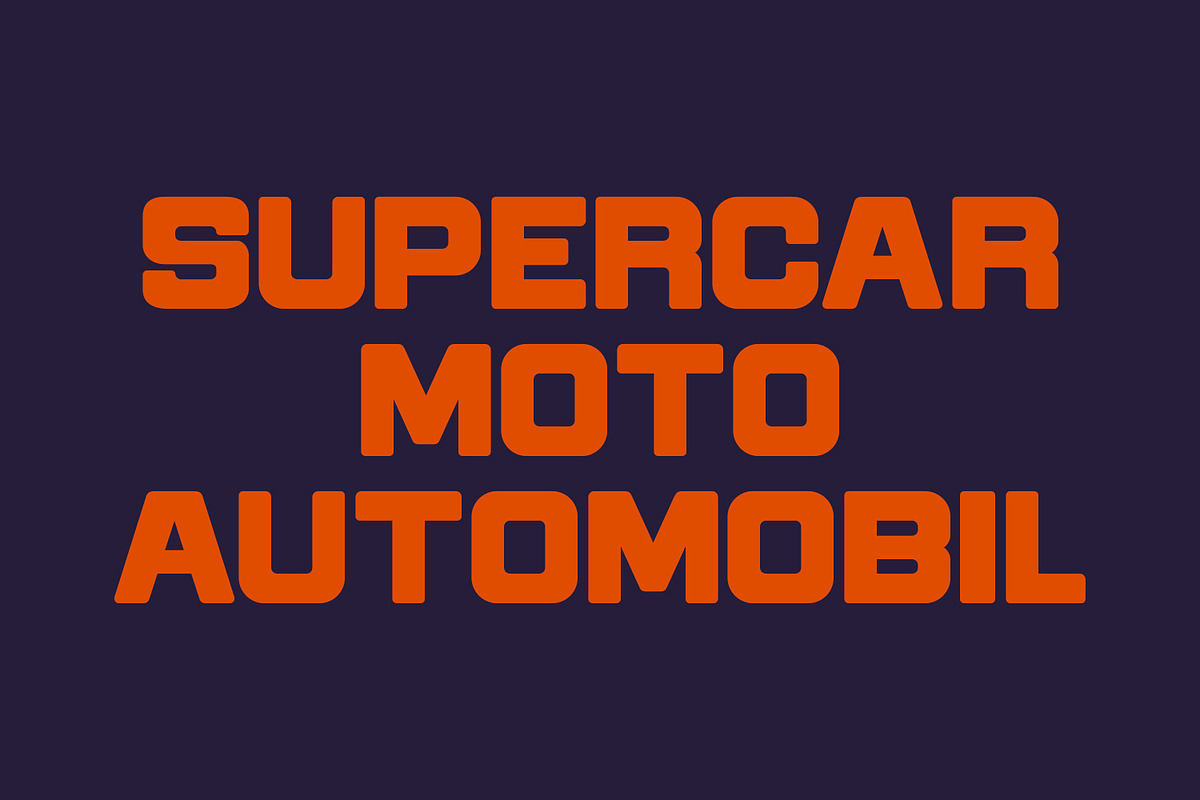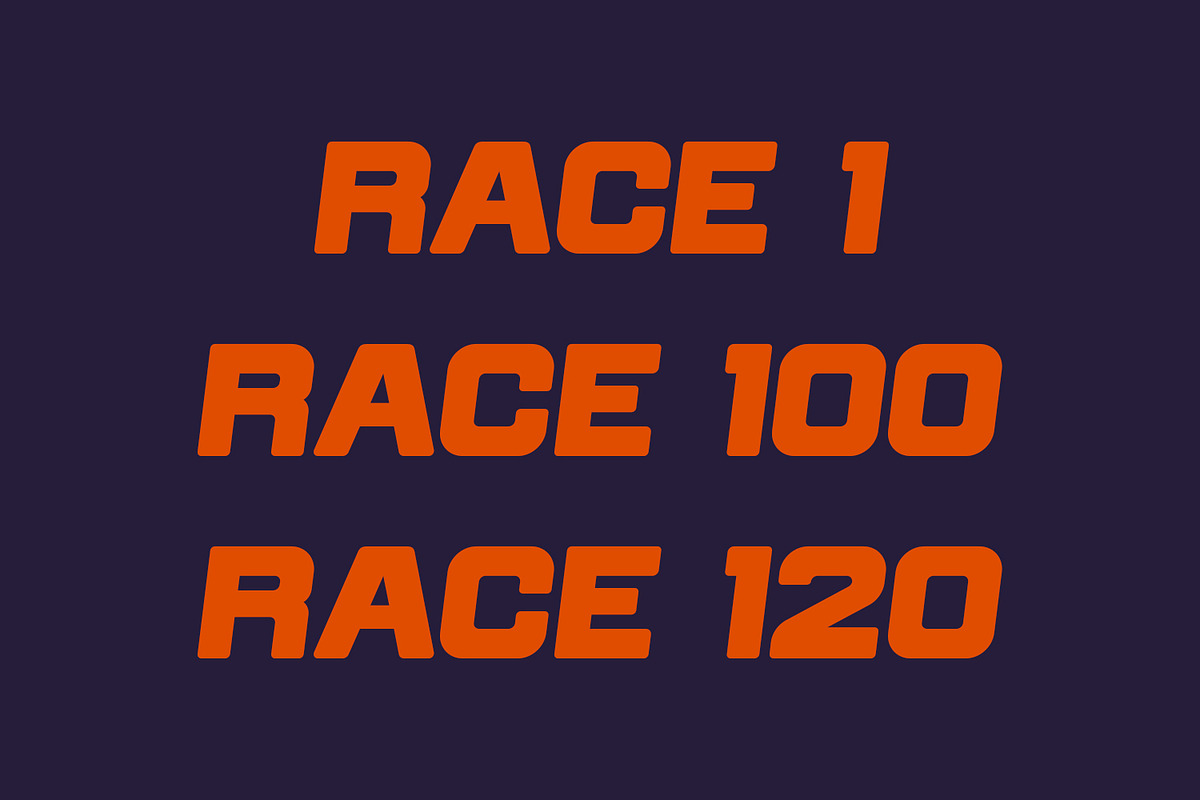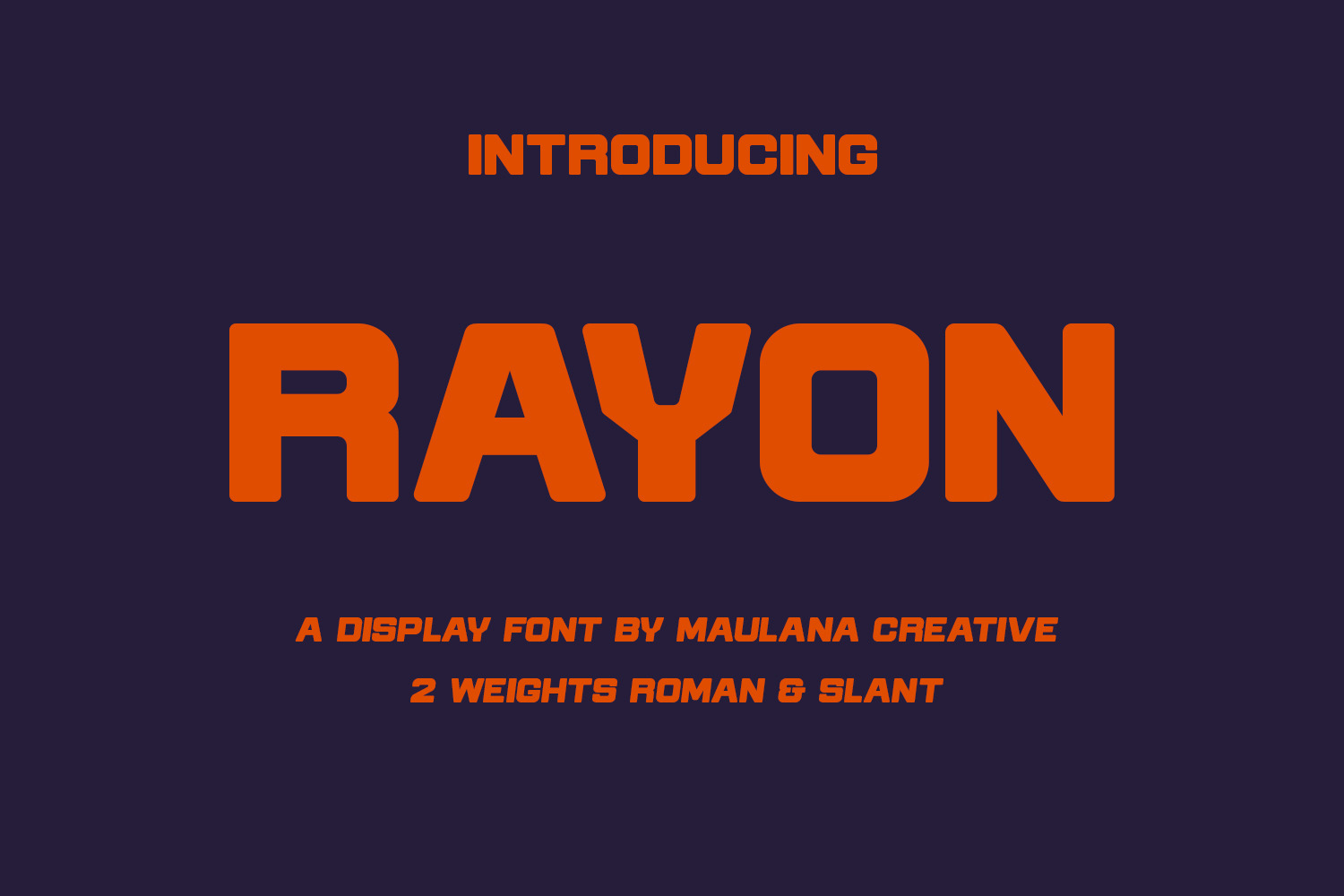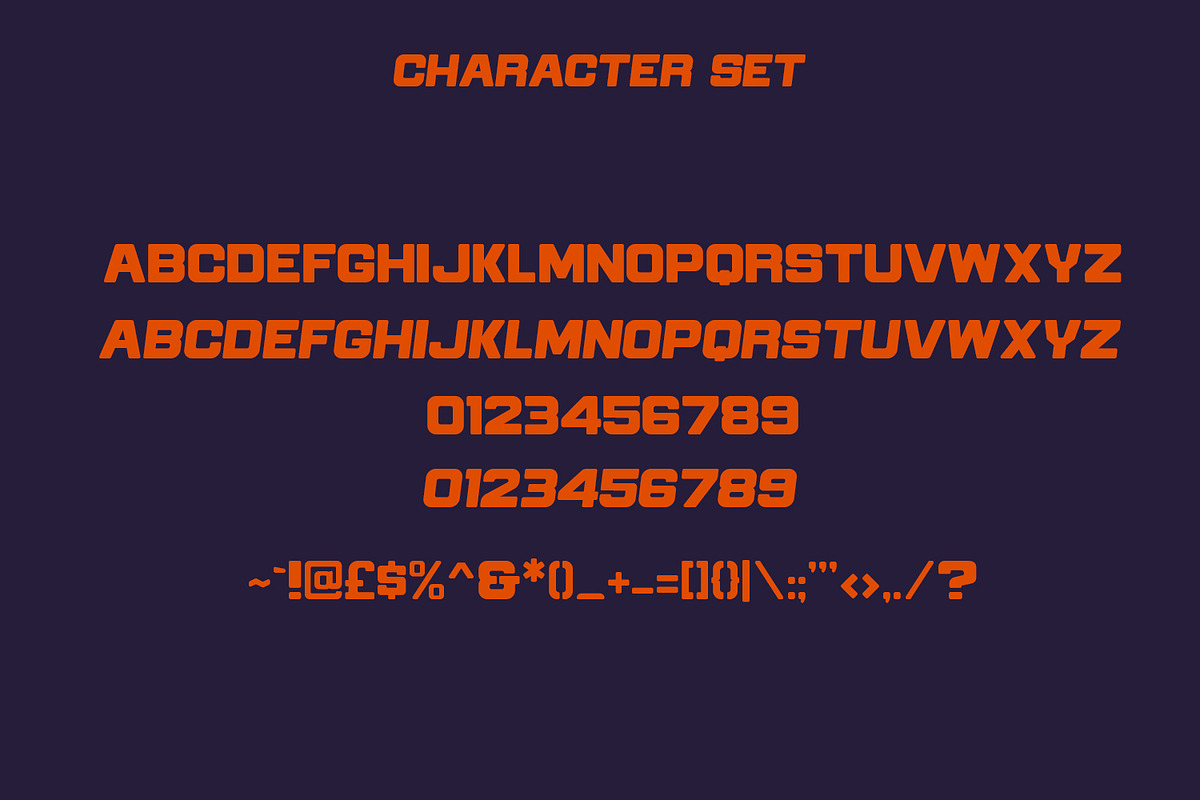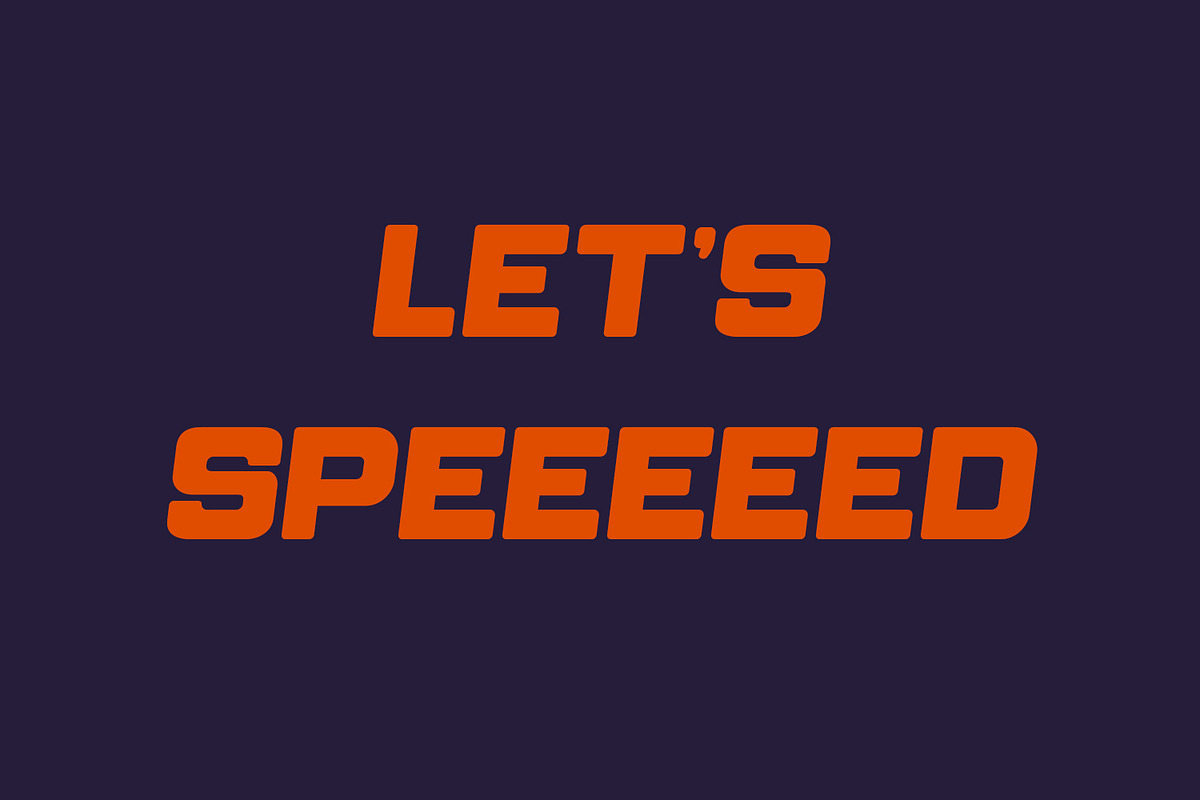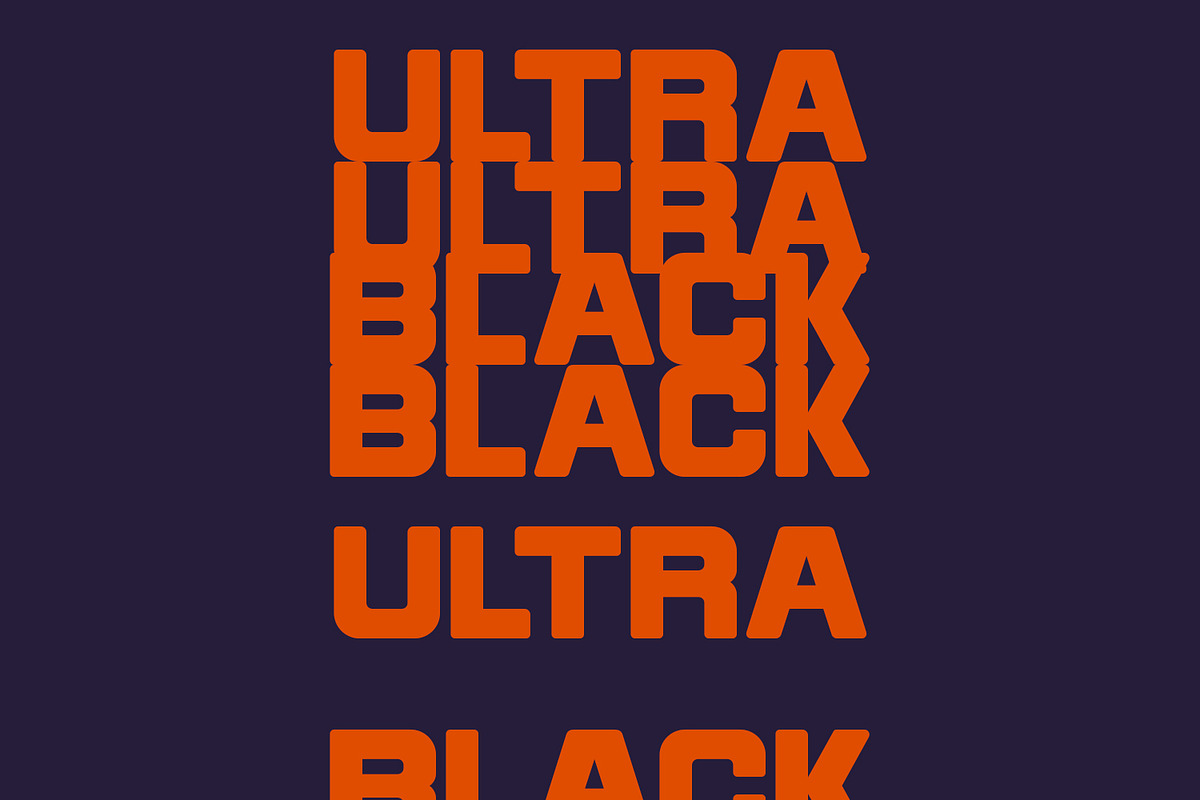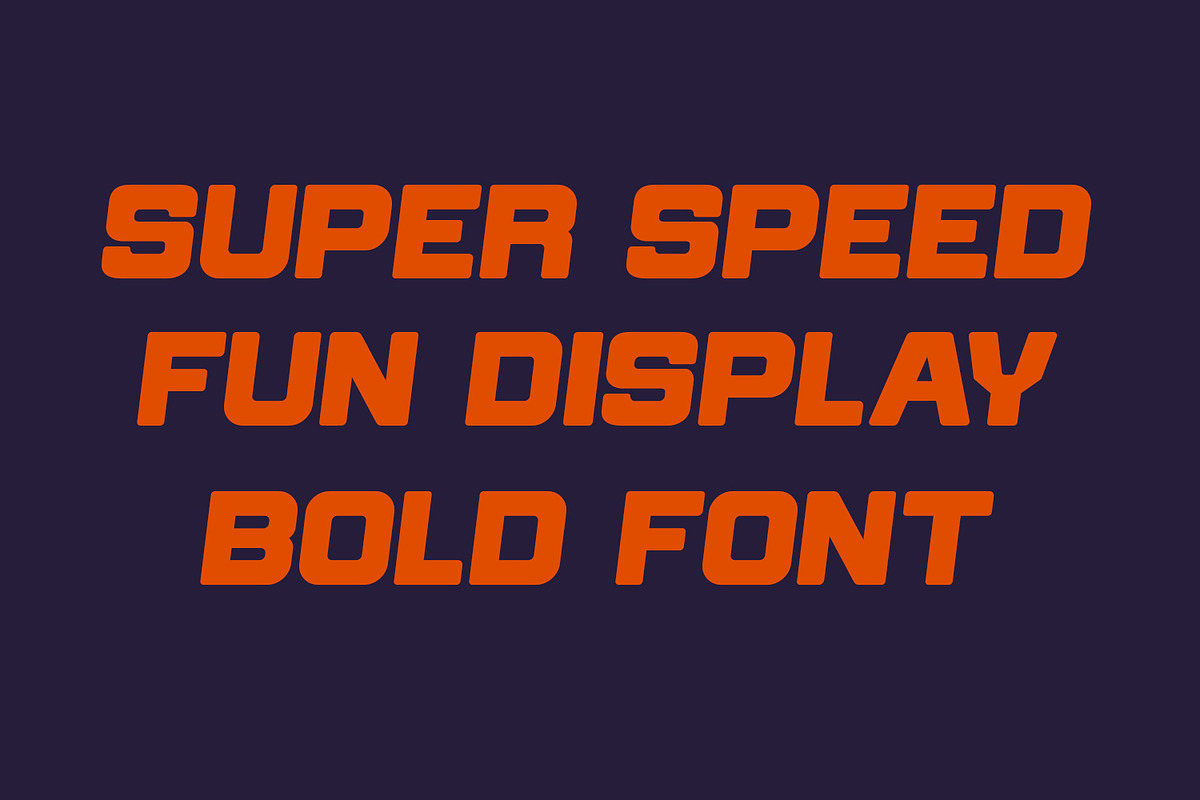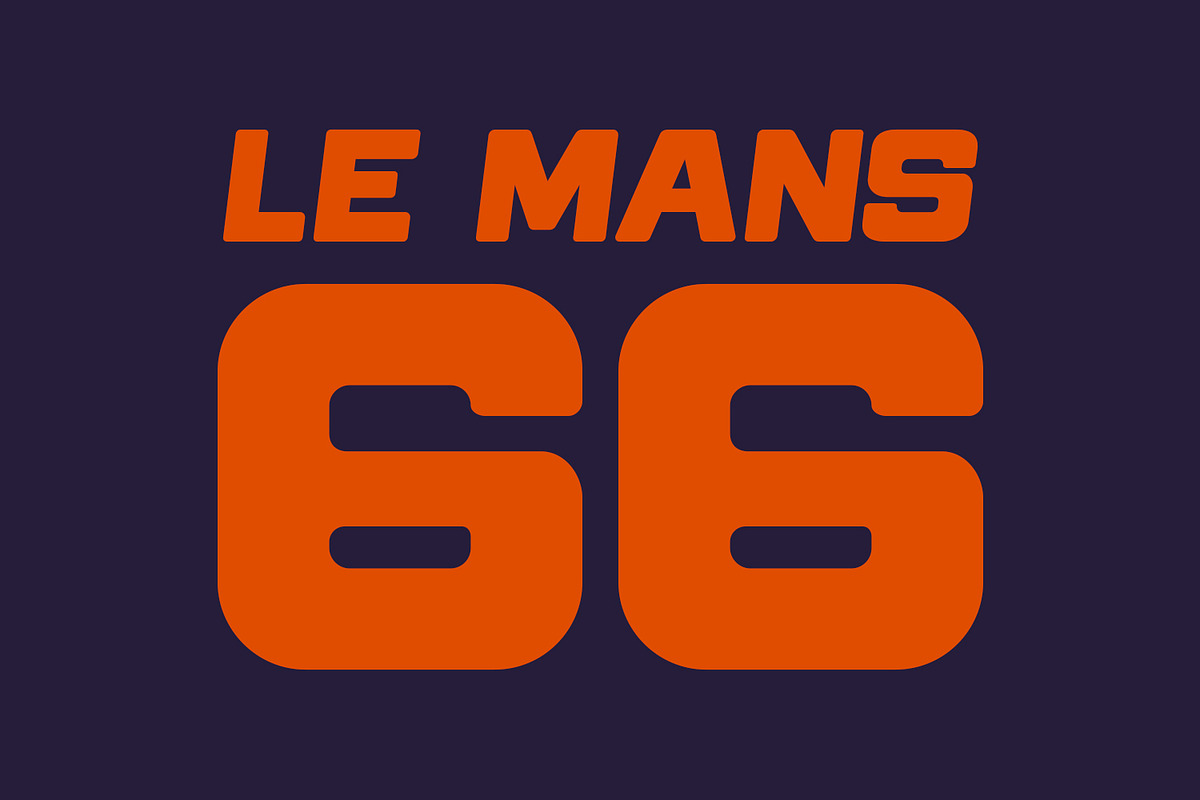
Rayon Display Font
Rayon is a tech-square sans display font. With heavy stroke and slanted style, fun character with a bit of ligatures and alternates. To give you an extra creative work. Rayon font support multilingual more than 100+ language. This font is good for logo design, Social media, Movie Titles, Books Titles, a short text even a long text letter and good for your secondary text font with script or serif. Make a stunning work with Rayon font.